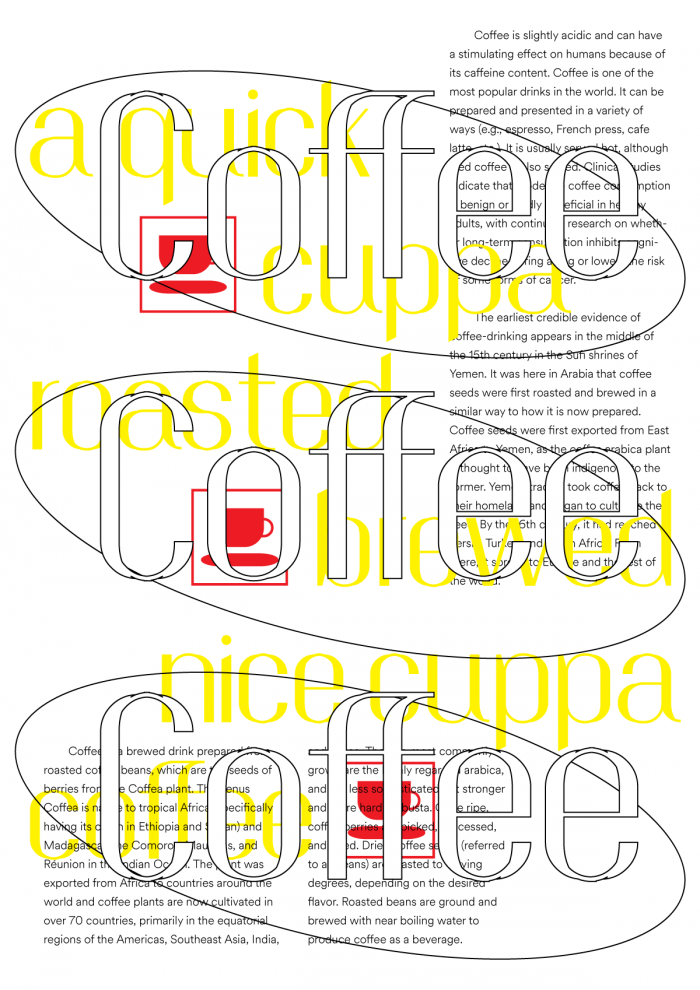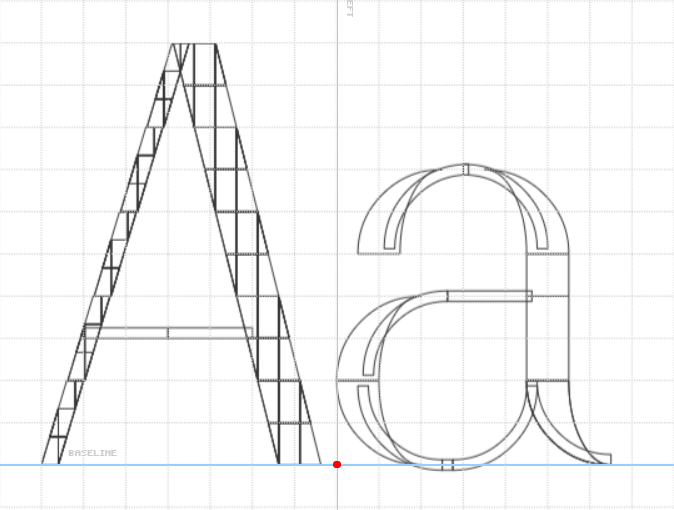
MX Coffee
by faux_icing
2x2 filters. Also can you change the coffee emoji to the word coffee​ so it can be searched for easily on fs?
A clean style with a slight but noticeable 20's look. Keep the unusual coffee glyph :) but to help members find it on FS without favouriting the font simply add 'coffee' in the (searchable) tags.
how is this possible?
Perfect for a coffee shop :D
Just asking which key is mapped to the coffee icon